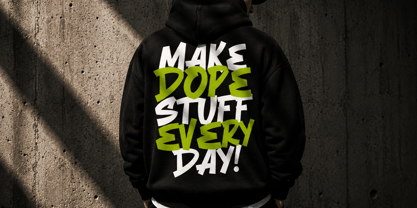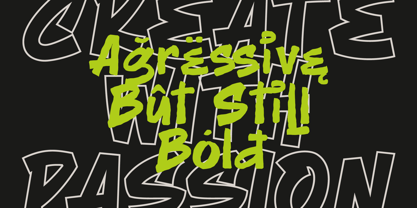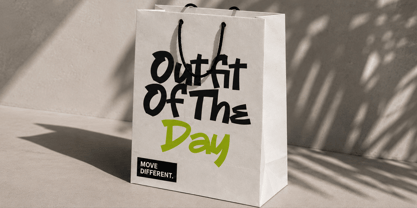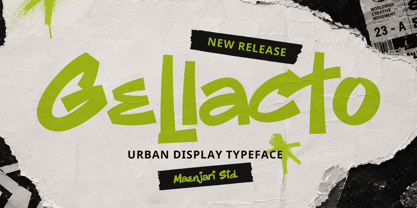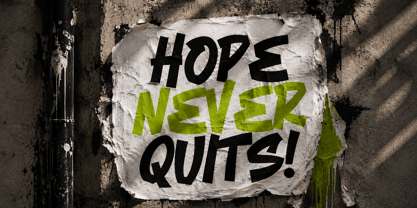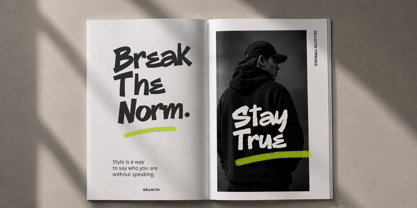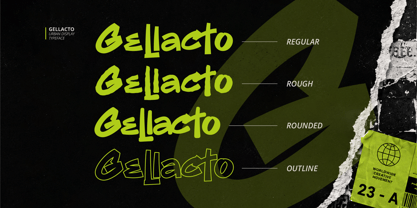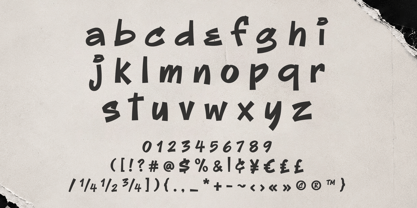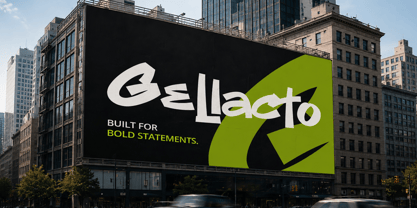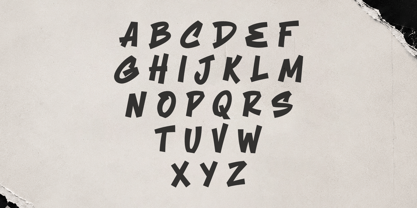
Gellacto
by Maenjari Std
The Gellacto Font Family was designed by Maenjari and published by Maenjari Std. Gellacto contains 3 styles and family package options. More about this family
Developed by Maenjari Studio, Gellacto is an urban display typeface that references the raw, unpolished energy of contemporary street art, skate zines, and casual marker hand-lettering. Its asymmetrical letterforms and aggressive angles make it a strong candidate for display hierarchies where a rebellious, youthful voice is required.
The family is comprised of four distinct styles: Regular, Rounded, Rough, and Outline. This stylistic range provides extensive layout flexibility, making Gellacto highly adaptable for editorial headers, streetwear branding, album artwork, and larger-scale environmental graphics. The "Rough" weight introduces a subtle texture that emulates physical ink on concrete, while the "Outline" weight allows for high-contrast, double-layered compositions.
Gellacto is technically optimized for high readability in display sizes, featuring complete uppercase and lowercase character sets, numerals, mathematical symbols, and broad European diacritics for international multi-language use.